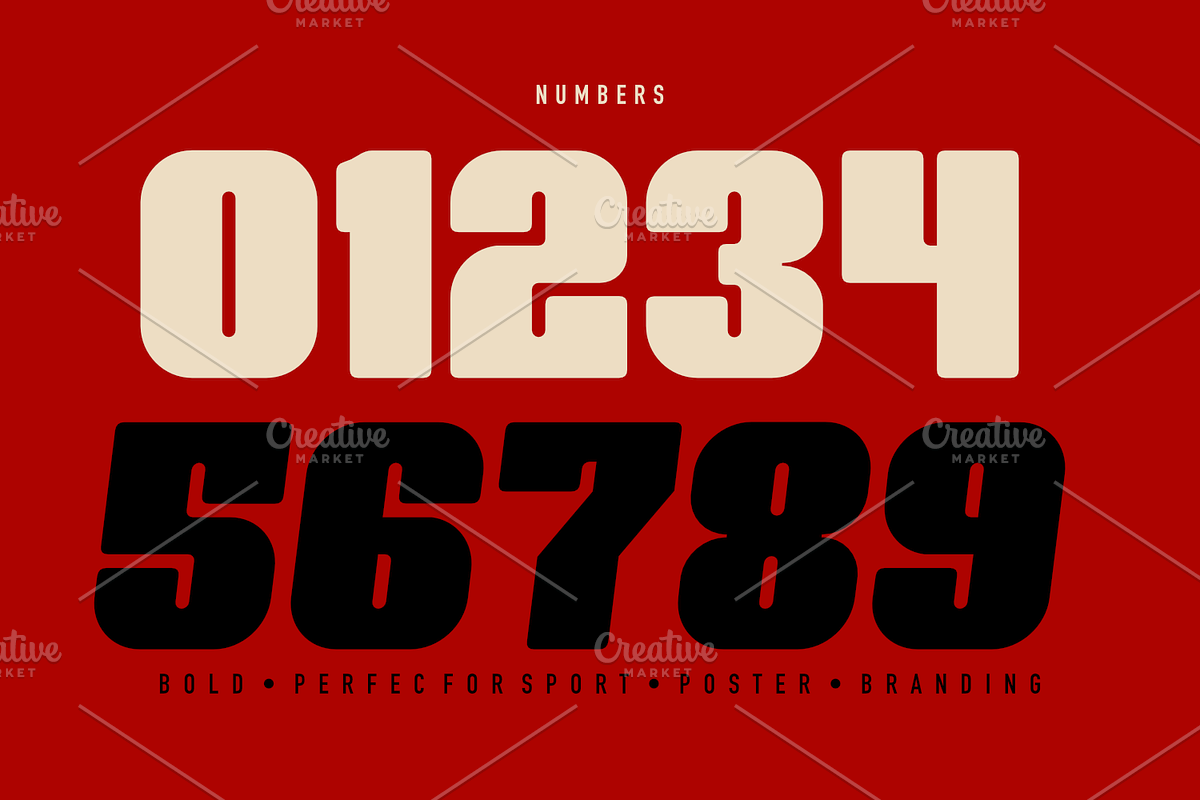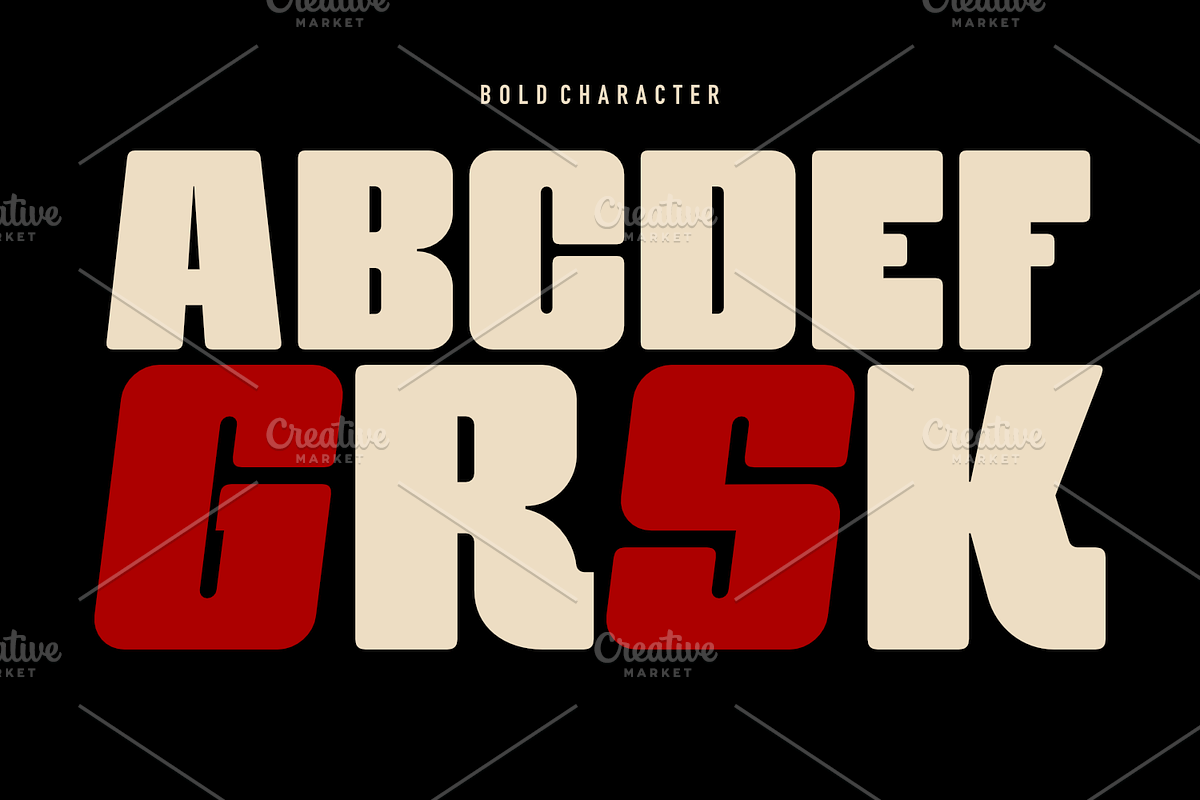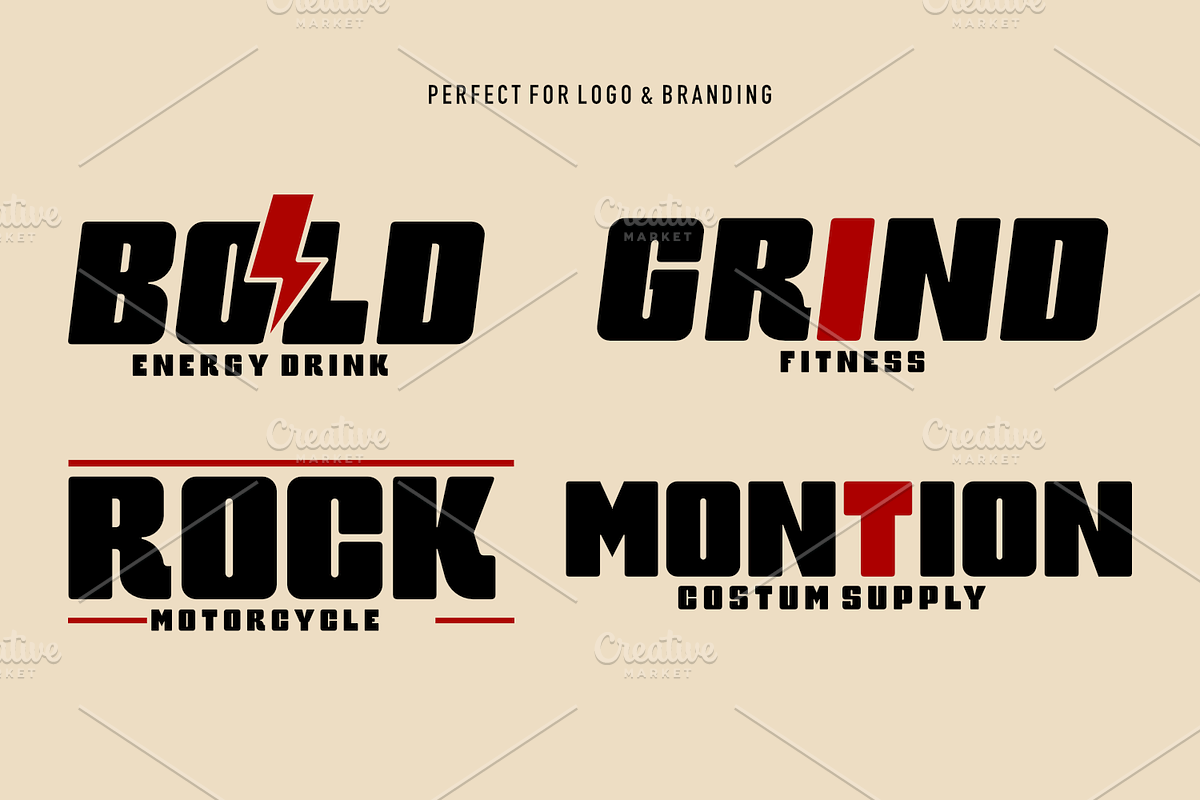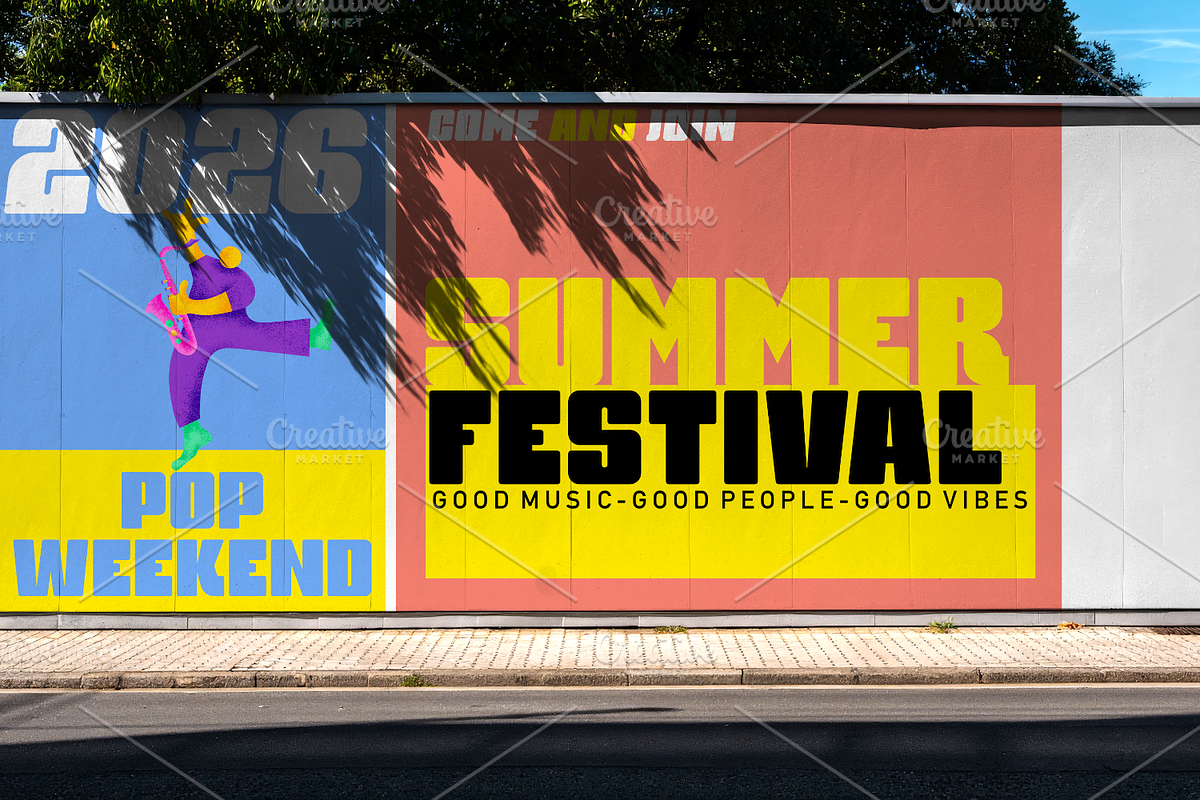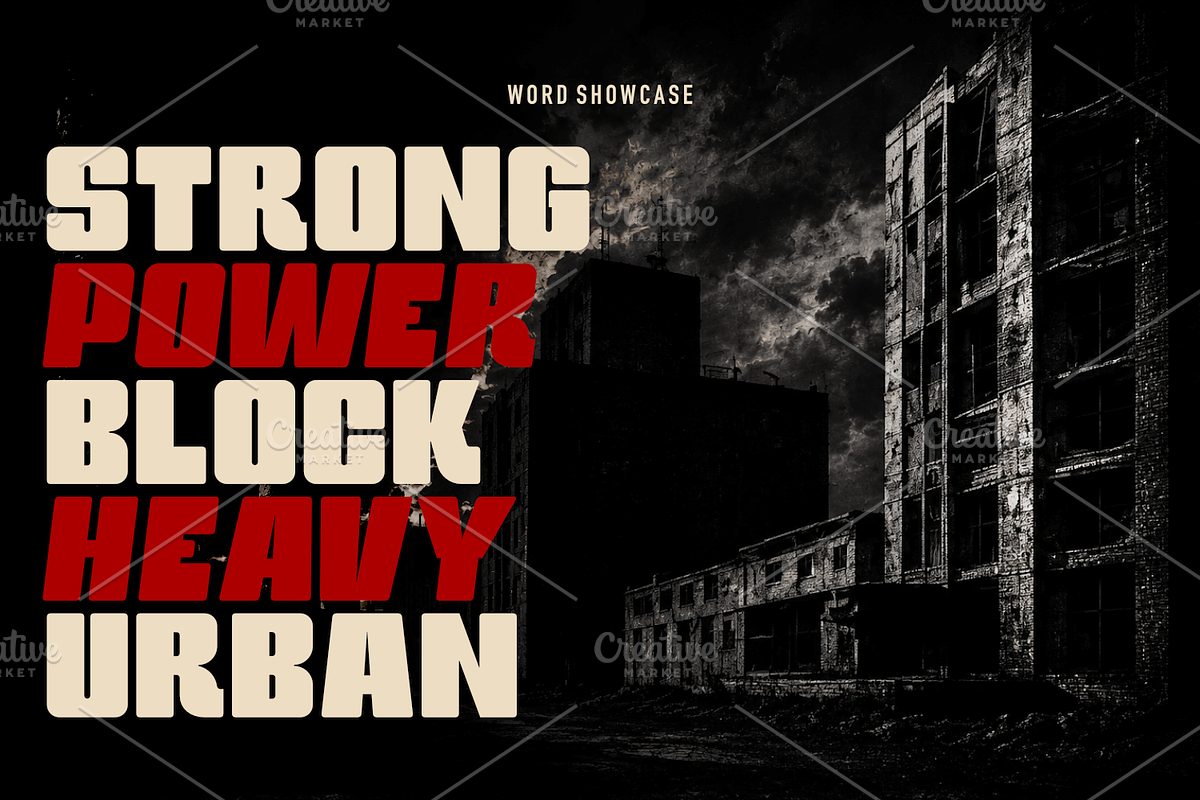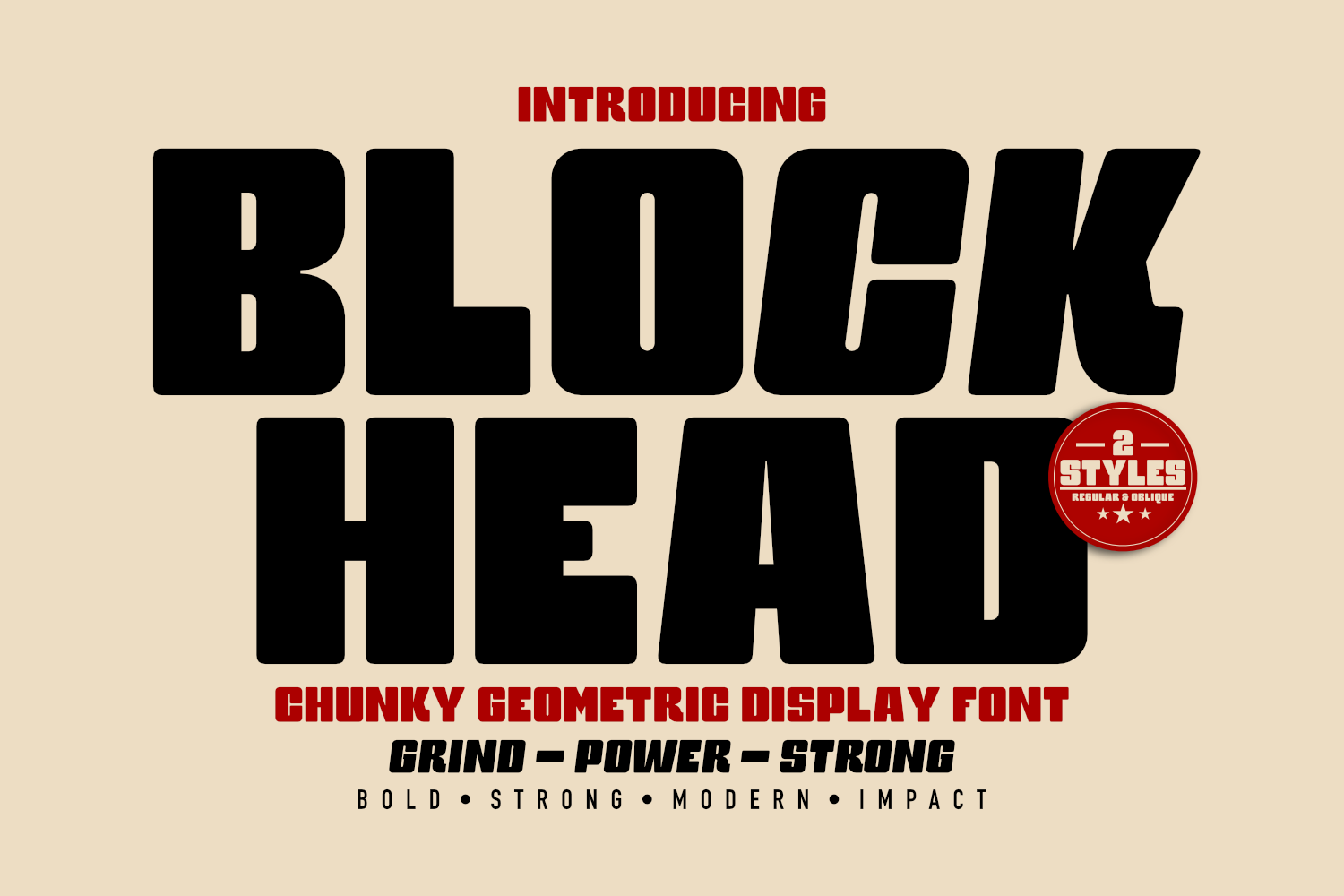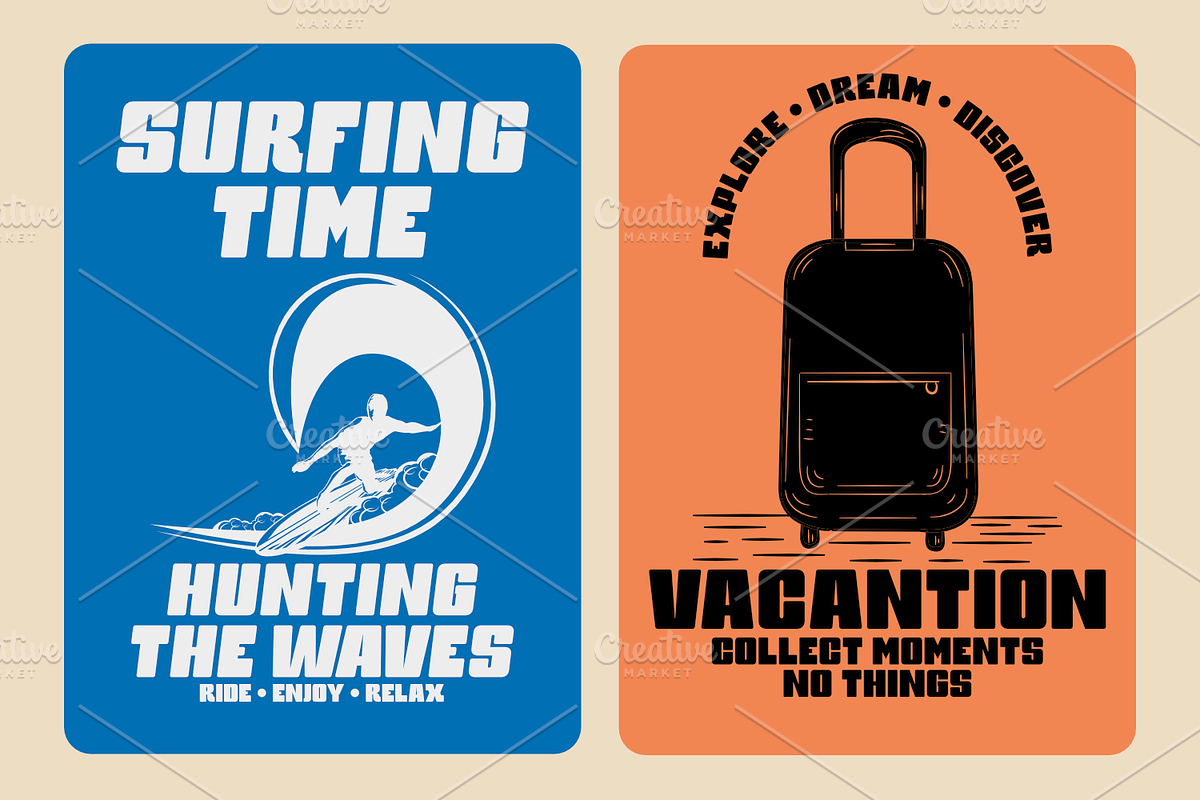
Block Head – Geometric Display Font
Block Head – Chunky Geometric Display Font
Block Head is a bold, chunky geometric display font designed to deliver maximum visual impact. With its strong condensed forms, precise geometric construction, and powerful presence, this typeface is built for headlines, logos, and designs that demand attention.
Available in two complementary styles — Regular and Oblique — Block Head offers both stability and dynamism. The Regular style provides a solid, authoritative foundation, while the Oblique version adds energy and movement, allowing designers to create contrast and hierarchy within a single word or layout.
Crafted with a modern yet timeless approach, Block Head balances heavy proportions with clean geometric precision. The result is a typeface that feels strong, contemporary, and highly versatile — perfect for projects that require a sense of power, confidence, and modernity.